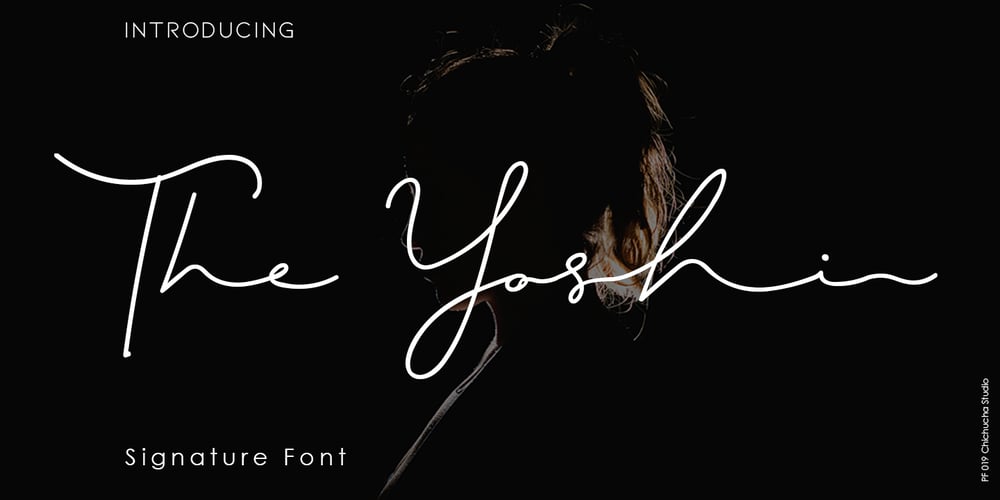
The Yoshi Font Family was designed by Christoph Nino and published by Vim ddd. The Yoshi contains 1 styles and family package options. The Yoshi is a beautiful signature font and can make your design project look elegant, classy and modern. This font is perfect for branding, invitations, stationery, wedding designs, social media posts, product packaging, product designs, label, photography, watermarks, special events and more. It comes with full set of uppercase and lowercase letters, ligatures and alternates. How to Enable OpenType Features in Word, Photoshop and Illustrator: https://medialoot.com/blog/how-to-enable-opentype-features-in-Microsoft word-photoshop-and-illustrator/ Hope you enjoy with this font. If you have any questions please don’t hesitate to drop me a message 🙂 Thank You, Chichucha Studio